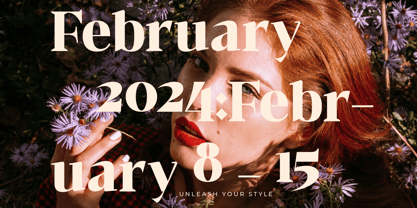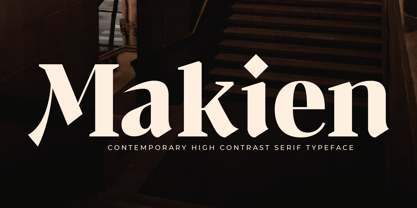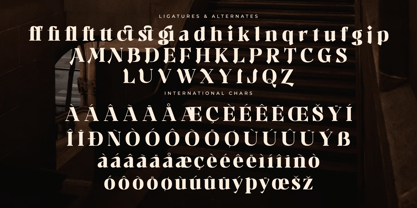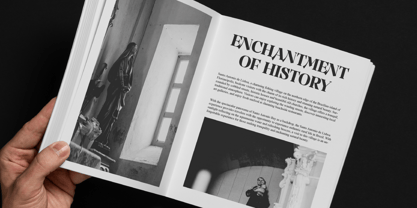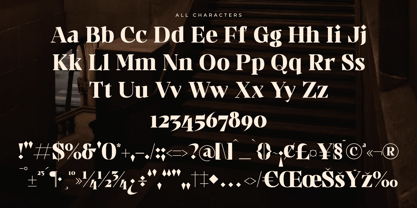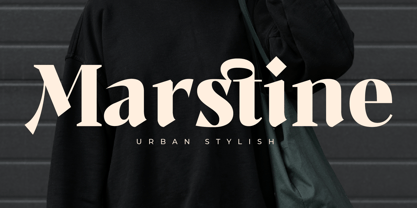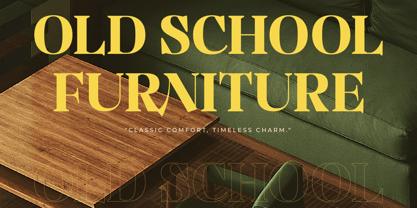
Makien
The Makien Font Family was designed by Heru Utama Putra and published by Letterena Studios. Makien contains 2 styles and family package options. More about this family
Makien – Contemporary High Contrast Serif , from Letterena, is a Luxury Serif font, suitable for any projects such as: logos, branding projects, homeware designs, product packaging, mugs, quotes, posters, shopping bags, t-shirts, book covers, name card, invitation cards, greeting cards, label, photography, watermark, special events, and all your other luxury and beautiful projects that need a Luxury Serif taste.